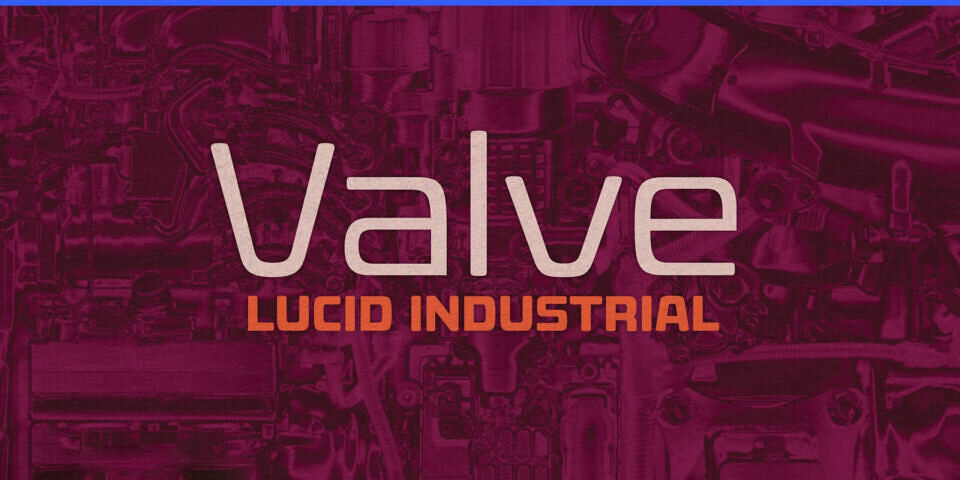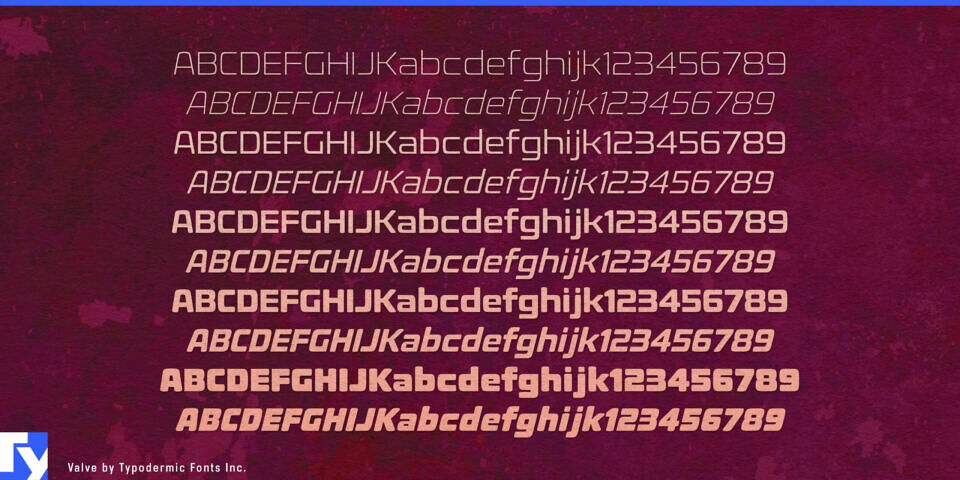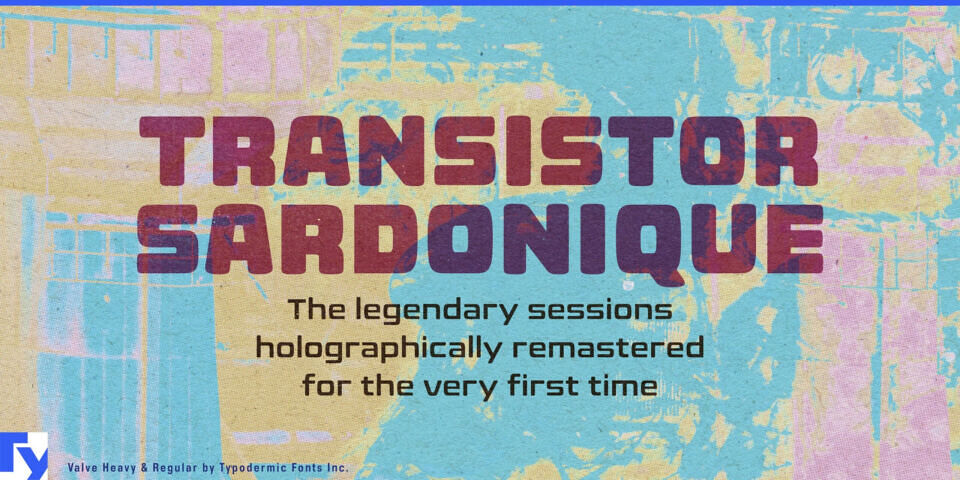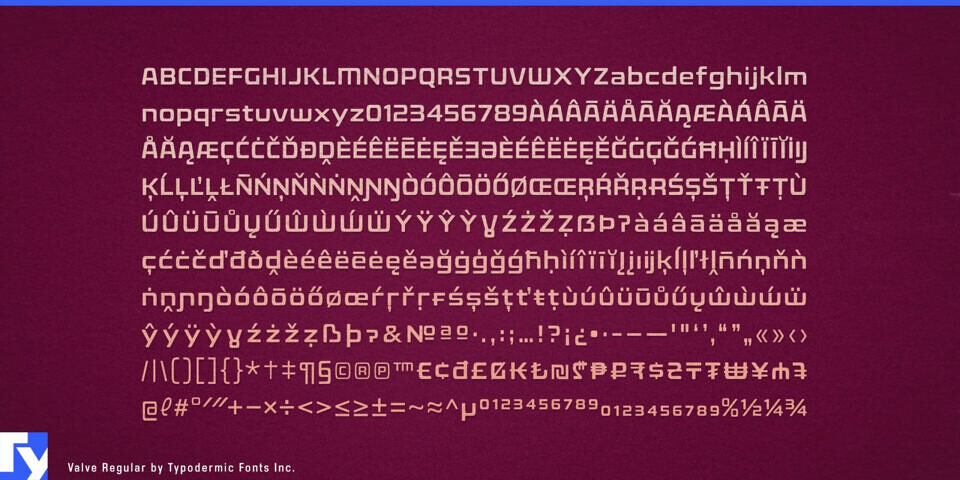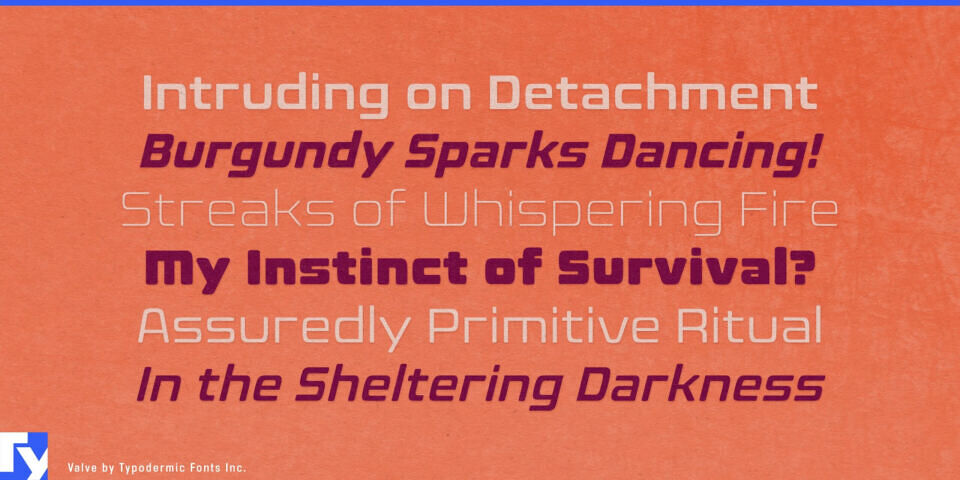
Valve Font
Valve is a study in engineered precision. Clean geometry and softened stroke ends give it a technical voice that remains approachable rather than cold. Its superelliptical forms suit modern interfaces, tech branding, editorial design, and forward-looking packaging or posters. With balanced proportions and broad Latin language support, Valve delivers clear, contemporary typography for projects that need a confident, modern tone.
Designed by: Typodermic Fonts